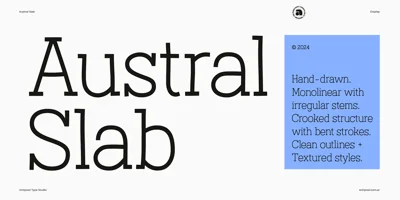
Austral Slab Font is perfect for Australian tourism branding, Southern Hemisphere expedition materials, outback adventure marketing, Antarctic research publications, Australian wine estate communications, and rugged outdoor adventure campaigns. Its robust character makes it ideal for Australian tour operators, Southern Cross airlines, Antarctic exploration organizations, Australian mining companies, and any application requiring sturdy typography that conveys Southern Hemisphere authenticity, outback resilience, and the adventurous spirit of Australian frontier culture.
Austral Slab Font is exciting because it embodies the rugged determination and pioneering spirit of the Southern Hemisphere through boldly constructed letterforms that reflect the harsh beauty and endless horizons of Australian landscapes. Its sturdy proportions and frontier-inspired details evoke the resilience required for life in challenging Southern climates and the adventurous character of those who explore Earth's most remote regions, making it perfect for brands celebrating authentic Australian heritage and exploration courage. The font's austral character transforms communications into declarations of Southern strength.
Austral Slab Font family includes expedition-ready weight variations typically featuring Regular, Medium, Bold, and Black options with consistent slab serif styling that maintains outback durability. The family often incorporates Southern Cross symbols, expedition markers, and adventure-related characters designed for exploration applications, providing designers with comprehensive tools for creating authentic, Australian-focused typographic compositions.
When selecting Southern Hemisphere typography solutions, Austral Slab Font represents an exceptional choice for Australian and Antarctic projects. This rugged typeface brings instant Southern authenticity to any design, making it invaluable for Australian tourism companies, expedition organizers, and adventure brands celebrating Southern Hemisphere exploration. Whether you're developing Australian outback tourism materials, creating Antarctic expedition documentation, or designing Southern Cross adventure campaigns, Austral Slab Font provides the rugged resilience and Southern authenticity essential for capturing the spirit of Australian adventure in today's exploration-focused tourism marketplace.